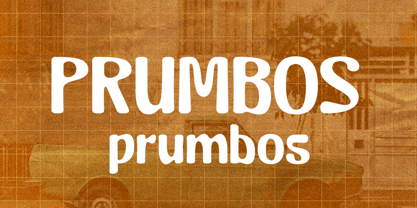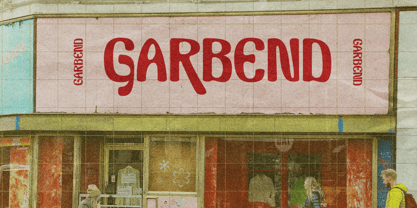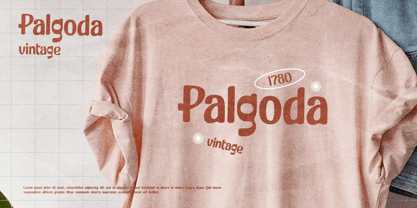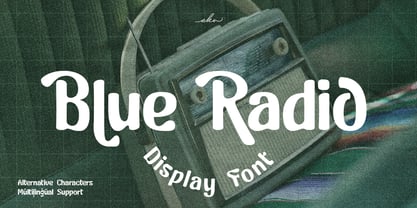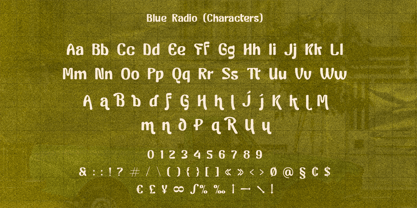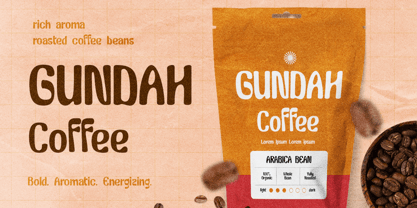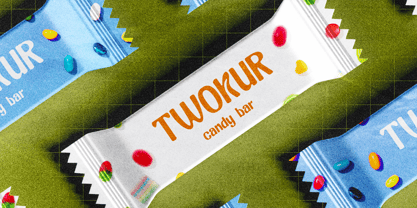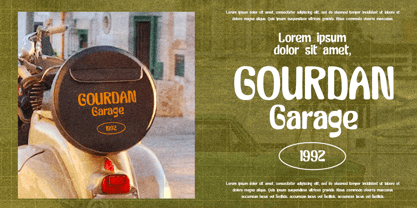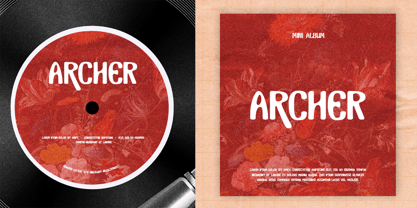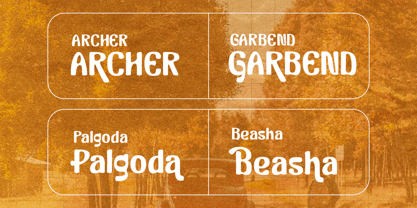
Blue Radio
Die Schriftfamilie Blue Radio wurde von Putu Eka Hermawan entworfen und von Ekahermawan veröffentlicht. Blue Radio enthält 1 Stile.
Introducing Blue Radio – A Bold Vintage Display Font Step into a world of timeless charm with Blue Radio, a bold vintage display font crafted to bring character and nostalgia to your designs. Inspired by classic signage, retro packaging, and old-school advertising, this typeface is perfect for logos, posters, branding, headlines, packaging, and anything that needs a touch of vintage flair. With strong lines and distinctive curves, Blue Radio stands out in both print and digital formats. It’s easy to use, yet packed with personality – the perfect balance for designers who want to make a lasting impression. Whether you're designing for a retro-themed project or just want to add some classic character to your work, Blue Radio is the perfect choice.